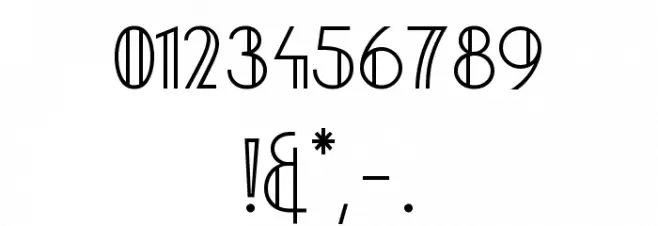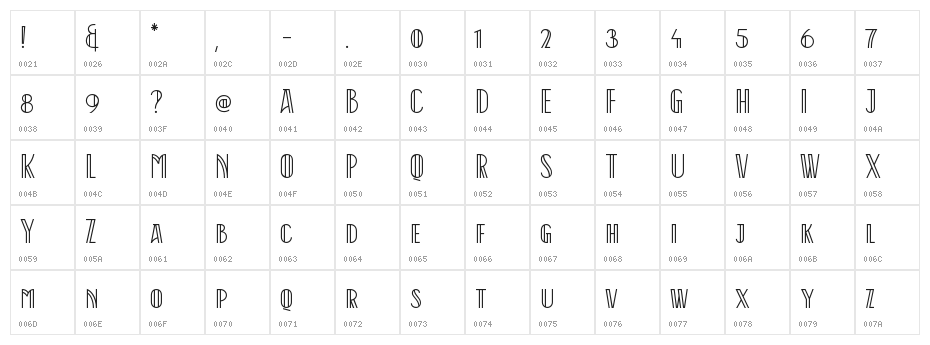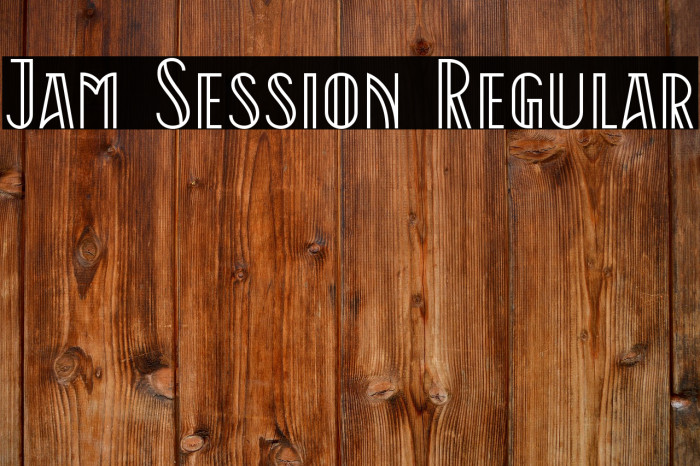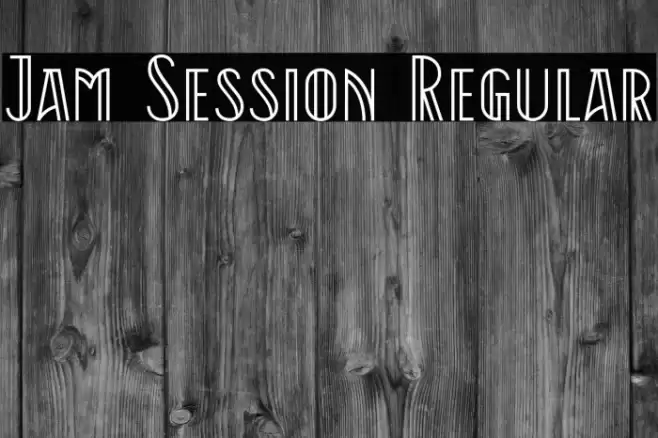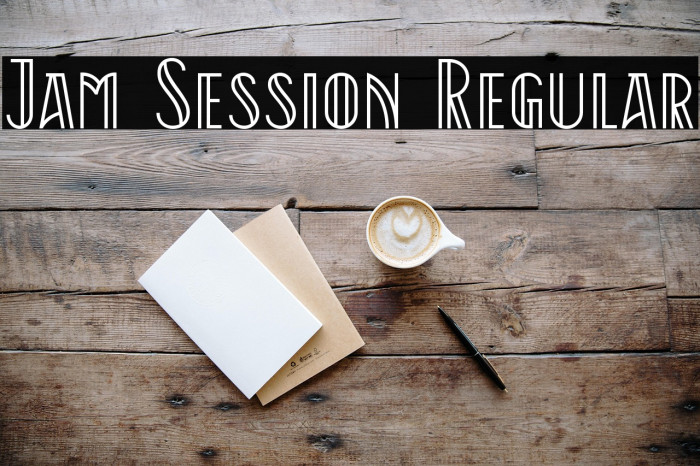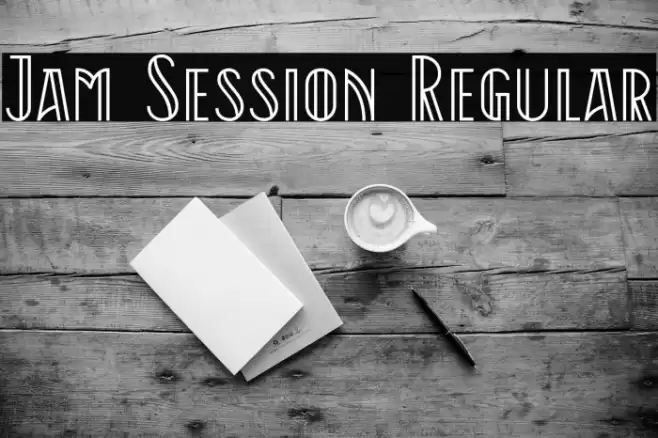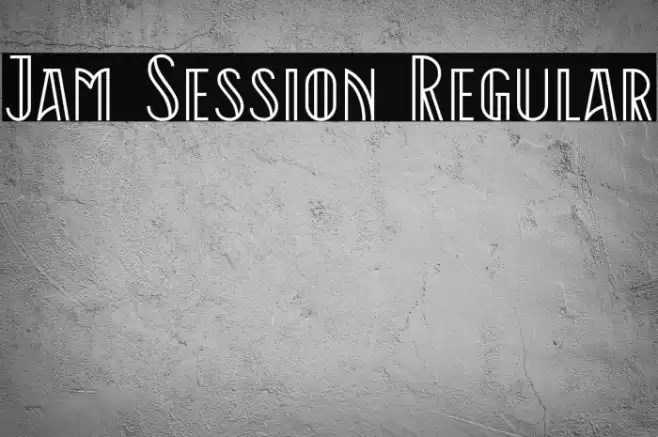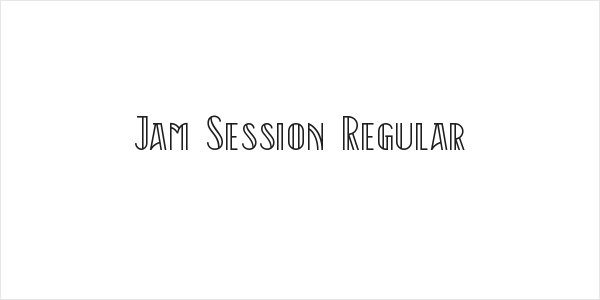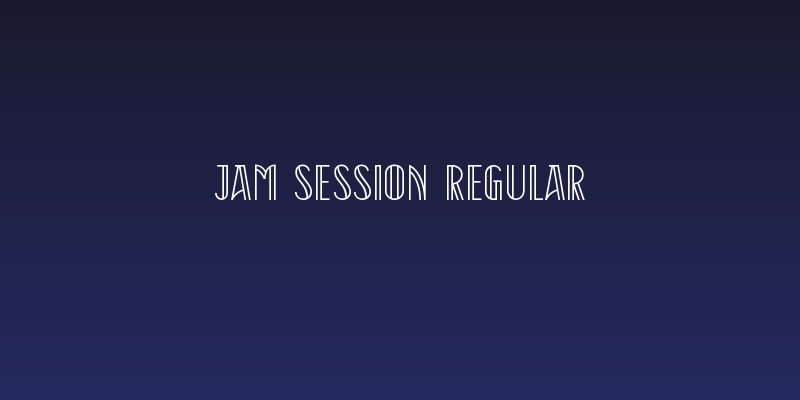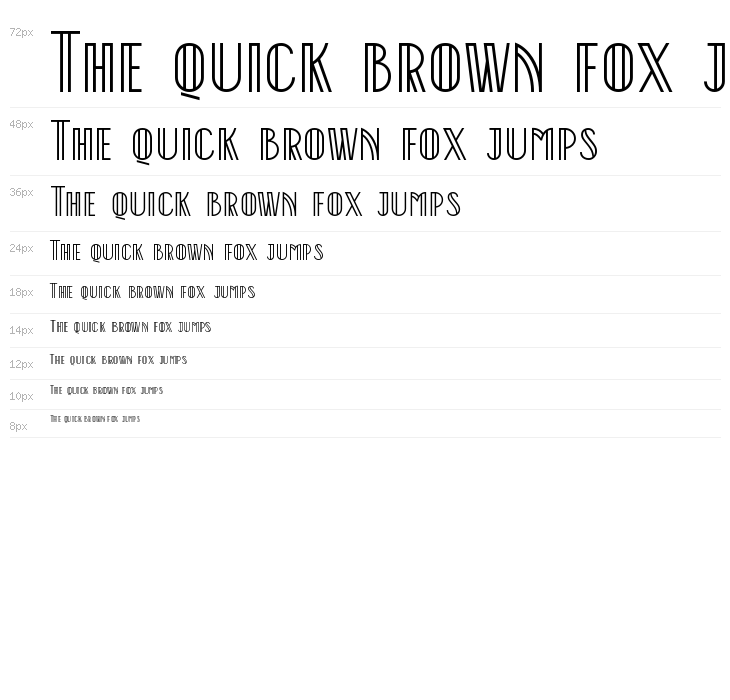
Jam Session Regular Font
Jam Session Regular Description
This font features a unique and modern design with elongated, narrow characters that give it a distinct, stylish appearance. The uppercase letters are particularly striking, with a geometric flair that adds a touch of elegance and sophistication. The lowercase letters maintain the same narrow structure, ensuring consistency throughout the typeface. Numbers are designed with a similar aesthetic, making them easily readable while retaining the font's overall style. Special characters are included, each crafted to match the font's sleek and contemporary look. The font's clean lines and minimalistic design make it versatile for various applications.
| Proposed Projects | Ideal for branding, logos, posters, and editorial design where a modern and stylish look is desired. |